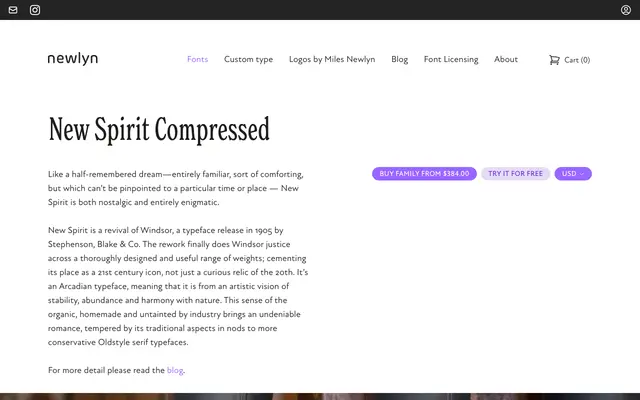
New Spirit Compressed
A compressed cut of Newlyn's Windsor revival, working across five weights with matching italics as part of a broad six-subfamily family.
Based on Windsor, released by Stephenson, Blake & Co. in 1905, New Spirit reworks the original across a full range of weights and widths that the source material never had. The Compressed subfamily runs from Light to Bold with italics, sitting alongside standard, Condensed and Italic cuts. Newlyn frame the design as Arcadian, drawing on the organic and pre-industrial warmth of the original while grounding it in a system usable for contemporary editorial and identity work.
A revival of Windsor (1905), which blends oldstyle serif characteristics with organic, Arts and Crafts sensibility. Newlyn describe it as Arcadian, with nods to conservative Oldstyle serif forms alongside a handmade, pre-industrial quality.